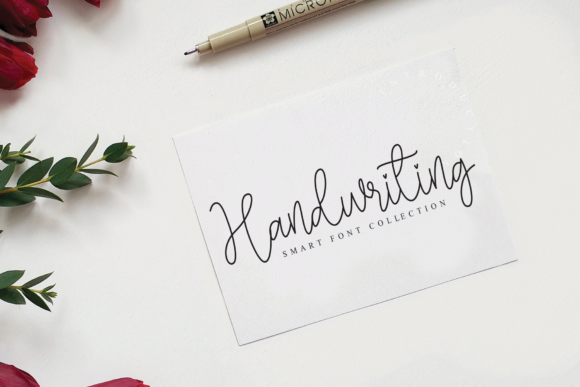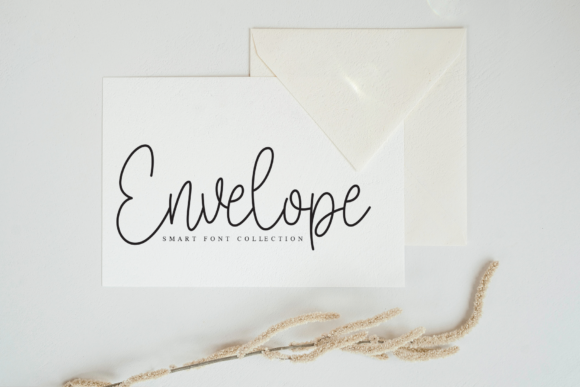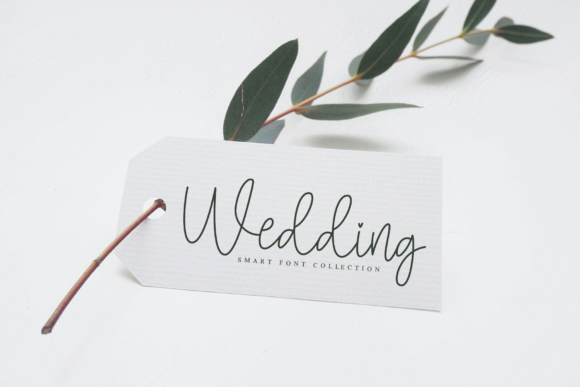
Guitar Melody Font: Elevate Your Designs with a Harmonious Script Font
In the world of typography, a fashionable script font can make all the difference in elevating your designs to the next level. Introducing Guitar Melody, a beautifully crafted script font that is sure to become a wonderful asset to your font library. With its neat and highly detailed design, Guitar Melody has the potential to enhance any creation, regardless of the topic or theme.
What Makes Guitar Melody Stand Out?
Guitar Melody is more than just a script font – it’s a work of art that combines elegance and sophistication with a touch of playfulness. Its unique design is inspired by the smooth, flowing curves of a guitar, making it perfect for designs that require a musical or creative touch. Whether you’re a designer, crafty DIY enthusiast, or simply someone who appreciates beautiful typography, Guitar Melody is sure to captivate your audience.
Key Features of Guitar Melody Font
- Neatly Crafted Design: Guitar Melody boasts a meticulously designed script font that exudes elegance and sophistication.
- Highly Detailed: Every letter and swash is carefully crafted to ensure a high level of detail, making it perfect for both digital and print designs.
- Versatile: Guitar Melody can be used for a wide range of design projects, from wedding invitations and branding materials to social media graphics and more.
- Easy to Read: Despite its ornate design, Guitar Melody remains easy to read, making it perfect for body text and headings.
How to Use Guitar Melody Font in Your Designs
One of the best things about Guitar Melody is its versatility. Here are a few ideas on how you can incorporate this beautiful script font into your designs:
- Wedding Invitations: Add a touch of romance and elegance to your wedding invitations with Guitar Melody.
- Branding Materials: Use Guitar Melody to create stunning logos, business cards, and letterheads that reflect your brand’s personality.
- Social Media Graphics: Elevate your social media presence with eye-catching graphics featuring Guitar Melody.
- Digital Art: Experiment with Guitar Melody in your digital art projects, such as illustrations, watercolor designs, and more.
Tips for Pairing Guitar Melody with Other Fonts
To get the most out of Guitar Melody, it’s essential to pair it with complementary fonts. Here are a few tips:
- Pair with Sans-Serif Fonts: Pair Guitar Melody with clean sans-serif fonts, such as Open Sans or Lato, for a striking contrast.
- Combine with Serif Fonts: Mix Guitar Melody with classic serif fonts, like Georgia or Times New Roman, for a sophisticated look.
- Experiment with Script Fonts: Don’t be afraid to pair Guitar Melody with other script fonts for a unique and creative look.
In conclusion, Guitar Melody is a fashionable script font that is sure to elevate your designs to new heights. With its neat and highly detailed design, versatility, and ease of use, Guitar Melody is an excellent addition to any font library. Whether you’re a designer, crafty DIY enthusiast, or simply someone who appreciates beautiful typography, Guitar Melody is a must-have font that will inspire your creativity and enhance your designs.